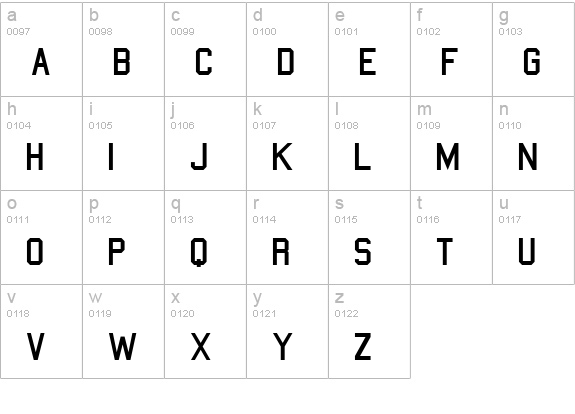
Introducing College font, a captivating typeface that effortlessly embodies the essence of collegiate spirit and heritage. With its bold and timeless letterforms, this font is perfect for creating designs that evoke a sense of tradition and academic excellence. College font features clean lines and sharp edges, giving it a distinct and confident presence. Its strong and sturdy appearance makes it ideal for a wide range of applications, from university logos and sports team branding to educational materials and event promotions. One of the most remarkable aspects of College font is that it is freely available to download at FontsMarket.com. This means that designers and enthusiasts alike can easily access and utilize this incredible font without any financial constraints. Whether you're a student working on a project, a professional designer crafting a logo, or simply someone with an appreciation for beautiful typography, College font will undoubtedly become an invaluable asset in your creative arsenal. The versatility of College font is another reason to celebrate its existence. With various weights and styles available, you can effortlessly customize the font to suit your specific needs and aesthetic preferences. Whether you prefer a bold and impactful look or a more subtle and elegant design, College font has got you covered. Furthermore, College font is designed with exceptional legibility in mind, ensuring that your message is conveyed with clarity and professionalism. Its balanced proportions and carefully crafted letterforms make it easy to read, even at smaller sizes. So, if you're in search of a font that captures the essence of collegiate spirit, look no further than College font. Its timeless design, versatility, and free availability to download at FontsMarket.com make it a must-have for any designer or typography enthusiast. Embrace the tradition, elevate your designs, and let College font be your creative companion on your journey to excellence.